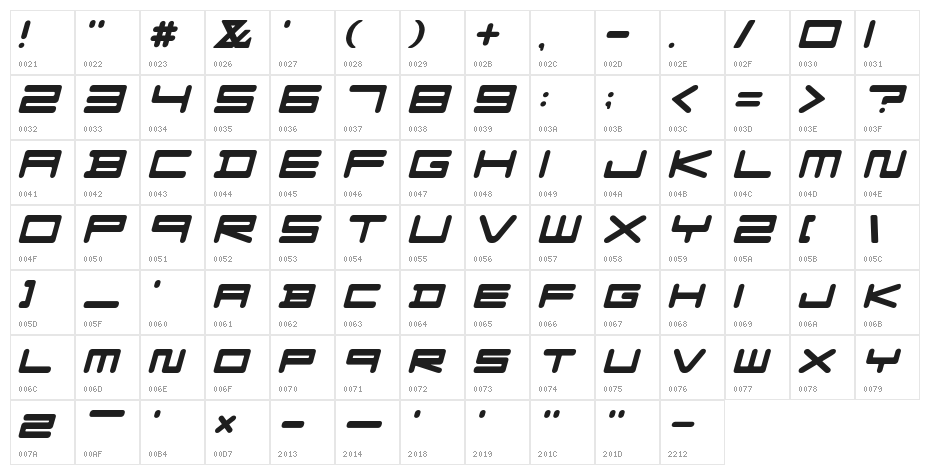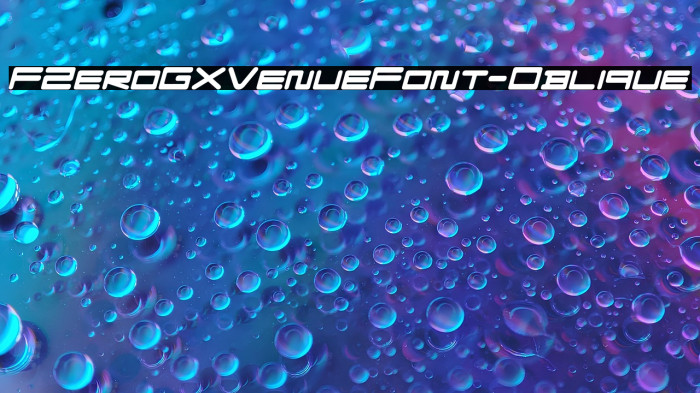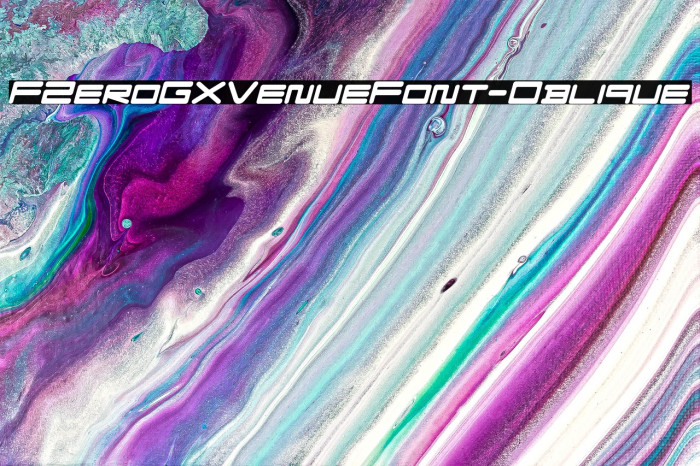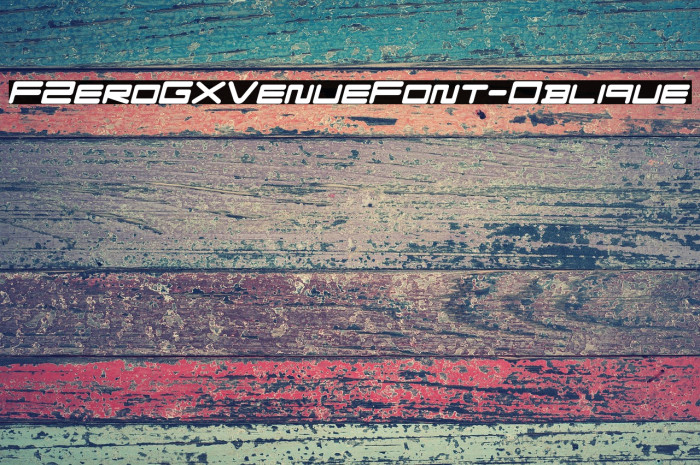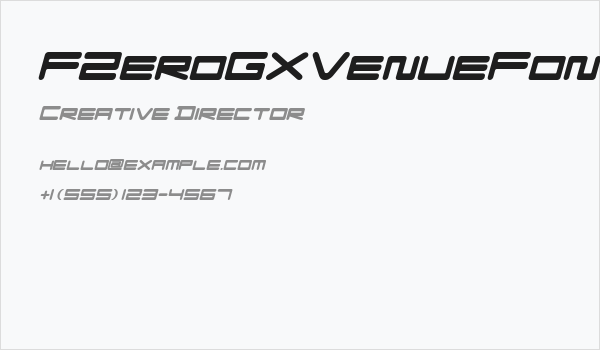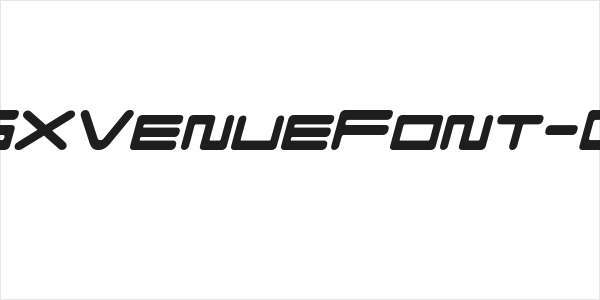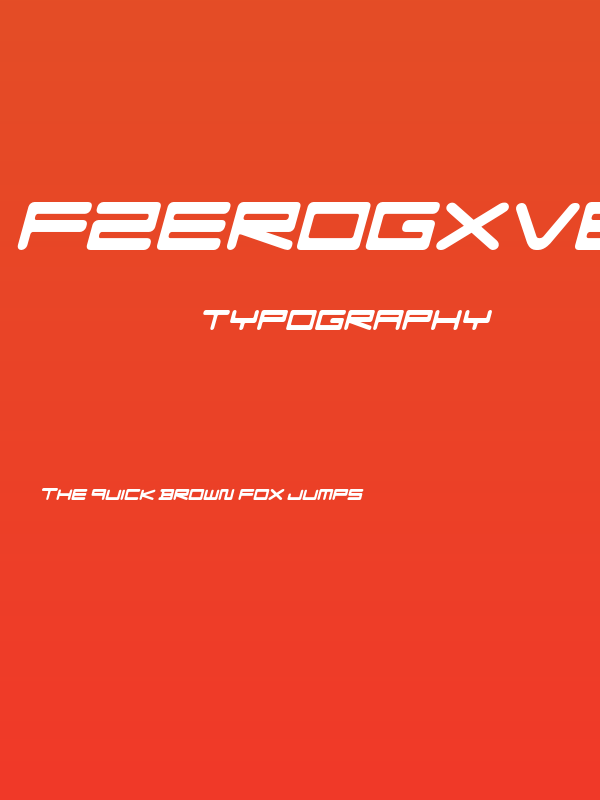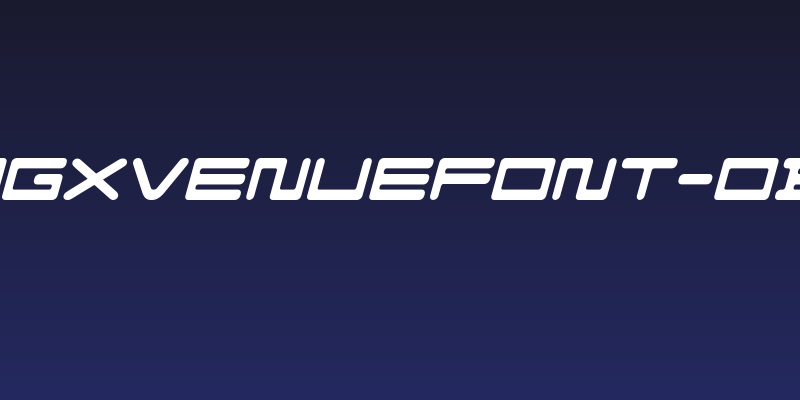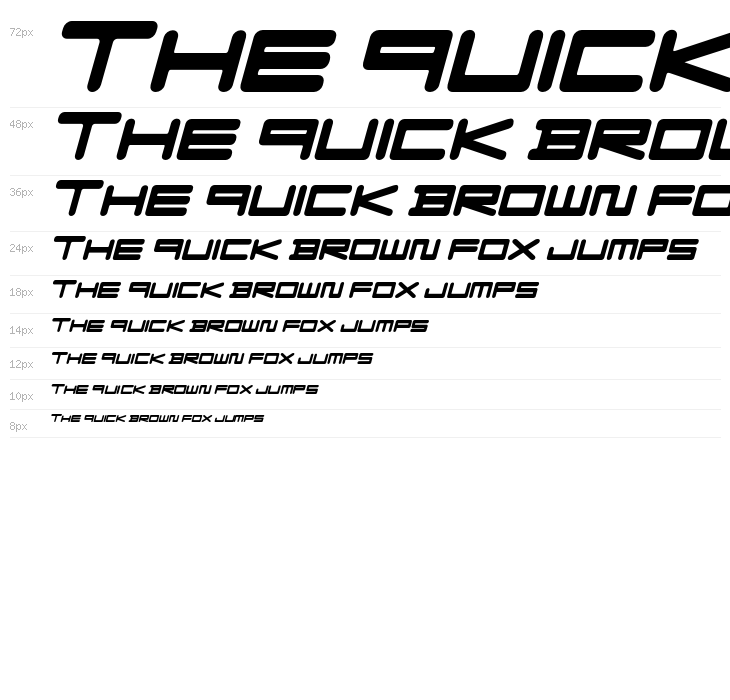
FZeroGXVenueFont-Oblique Font
FZeroGXVenueFont-Oblique Description
This font features a sleek, futuristic design with a distinct oblique slant, giving it a dynamic and forward-moving appearance. The characters are bold and geometric, with rounded edges that soften the overall look. The uppercase and lowercase letters maintain a consistent style, with a uniform height that enhances readability. The numerals are equally stylized, matching the angular and modern aesthetic of the alphabet. Special characters are included, designed to complement the overall theme with similar angular and rounded elements. The font's unique style makes it suitable for projects that require a modern and energetic feel.